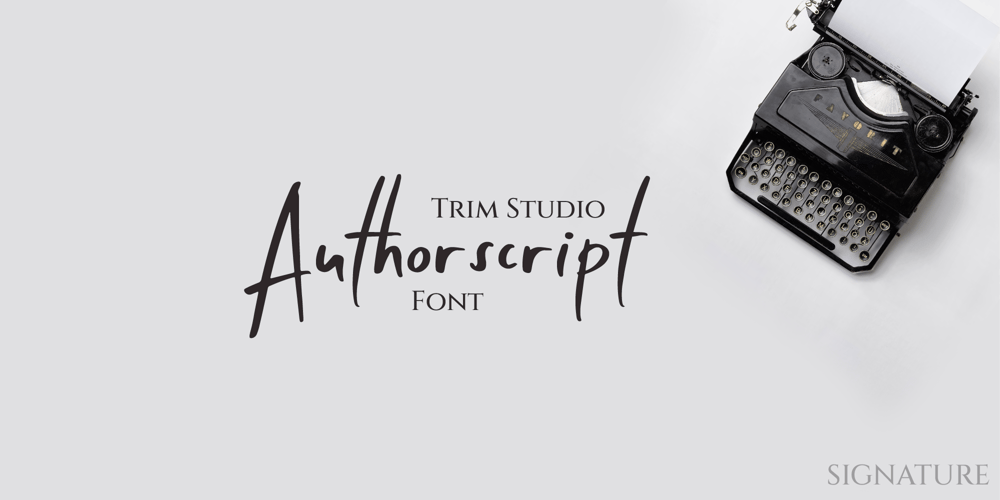
Authorscript
Authorscript font
Authorscript Font Family was designed by Deri Kurnia and published by Trim Studio. Authorscript contains 1 styles and family package options. **Authortscript** is a versatile handwritten font with an easy flow movement that captures the essence of classic calligraphy. This elegant and professional-grade font is perfect for a variety of projects, including book covers, invitations, and branding materials. Its effortless strokes and natural curves create a unique and authentic feel, adding a touch of personality and charm to any design. AuthorScript is designed to be both stylish and legible, making it suitable for both digital and print applications. With its modern twist on traditional calligraphy, AuthorScript is sure to make your designs stand out and leave a lasting impression—Thank you for let us be your design partner, If you have any questions please don’t hesitate to drop me a message